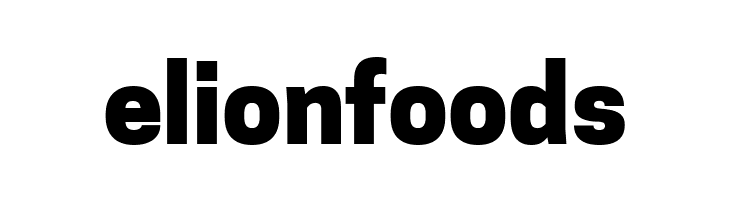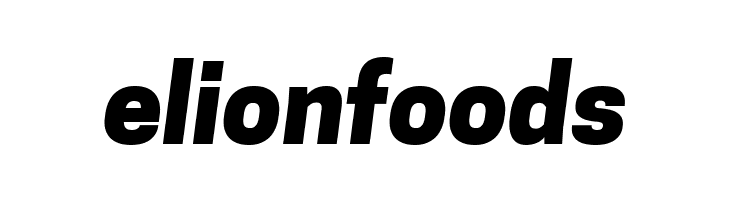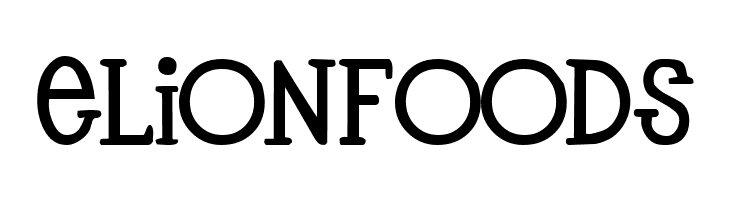
• Taman Signature
An elegant, flowing script font with a sophisticated, handwritten style.
• Tangerine
( Fonts by Matthew Austin Petty - www.disturbed.com )
A bold serif font with a classic yet modern aesthetic.
• Tanks-WW2
• Tanohe Sans Black
( Fonts by Cooper Hewitt Smithsonian Design Museum )
A bold, modern sans-serif font with strong, uniform strokes.
• Tanohe Sans Black Italic
( Fonts by Cooper Hewitt Smithsonian Design Museum )
• Tanohe Sans Light
( Fonts by Cooper Hewitt Smithsonian Design Museum )
A modern, light sans-serif font with excellent readability.
• Taper
• TARIK SES!
( Fonts by GFR Creative )
A playful, bold font with rounded, thick strokes and a whimsical style.
• TARYLAND (demo)
A playful, zigzag-patterned font with a hand-drawn, whimsical style.
• Tasmin Reference